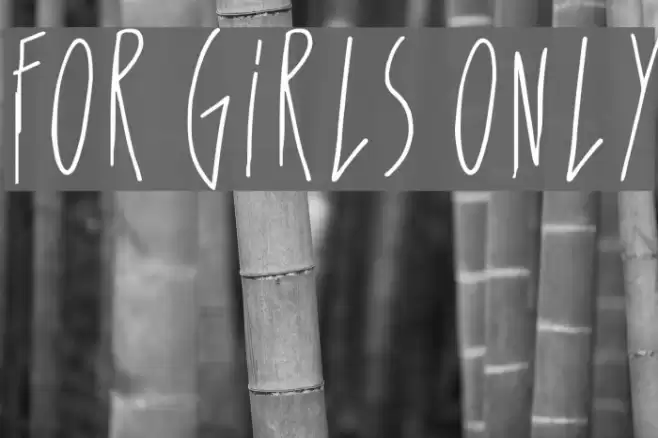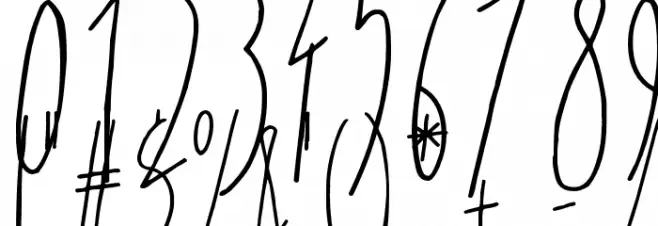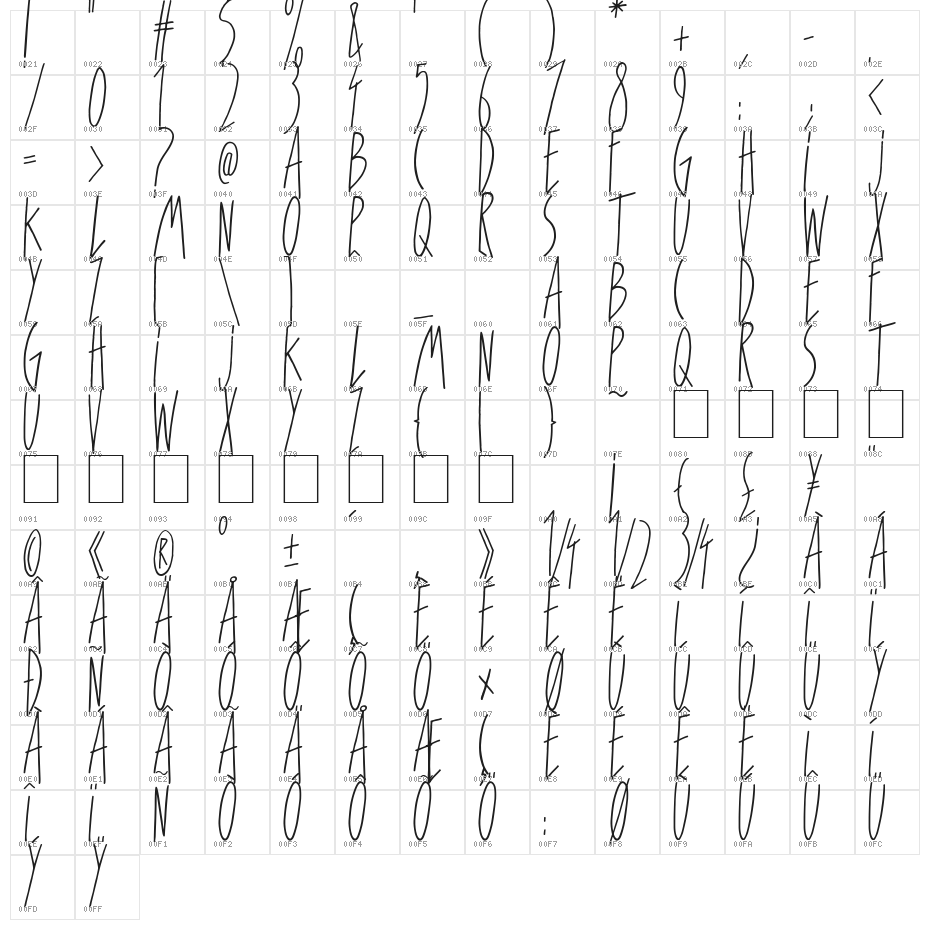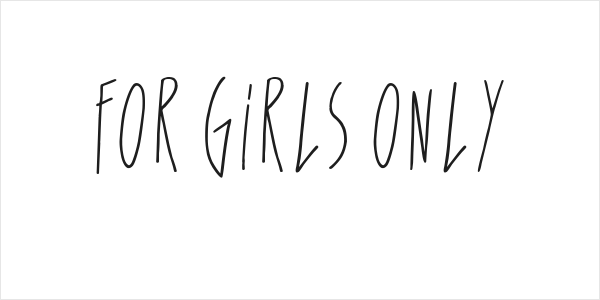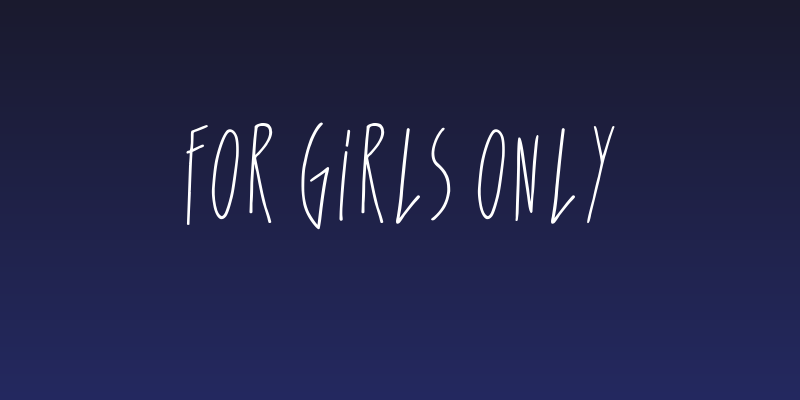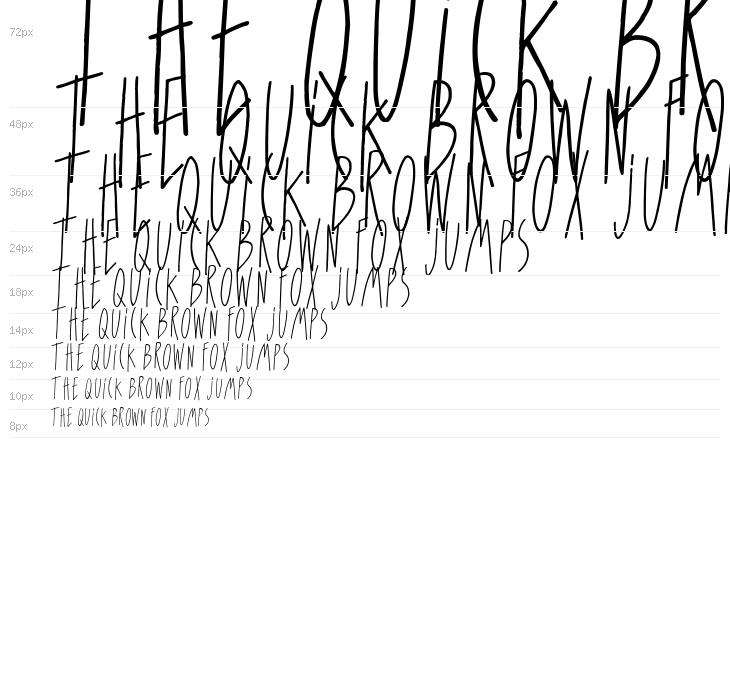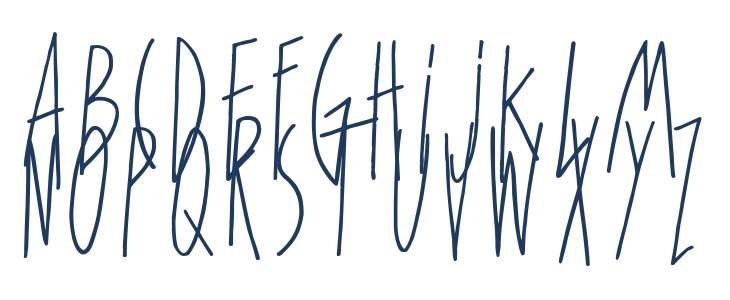
For Girls Only Font
For Girls Only Description
This font features a playful and whimsical handwritten style, characterized by tall, narrow letters with a casual, carefree appearance. The strokes are uneven, adding to its informal and artistic charm. Each character has a unique flair, with elongated ascenders and descenders that create a dynamic and lively look. The font maintains a consistent line weight, giving it a cohesive and harmonious feel. Its quirky and youthful design makes it ideal for projects that aim to convey a sense of fun and creativity.
A playful, whimsical handwritten font with tall, narrow letters and a casual style from Uncategorized fonts.
- Proposed Projects: Perfect for children's book covers, playful invitations, greeting cards, and creative branding projects.
- Overall Style: Playful
- Use Case: Logos, Headlines, Creative projects